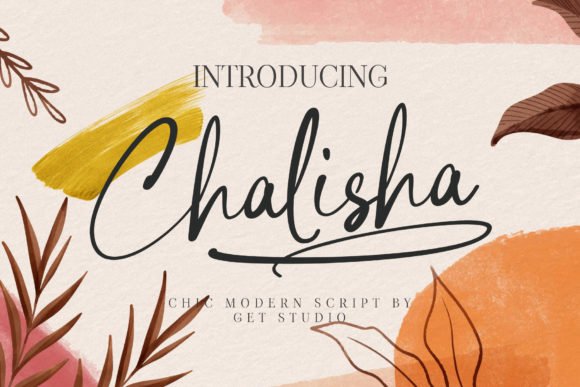
Discover the Whimsy of Chalisha Script Font
As a designer, there’s nothing quite like the thrill of discovering a new font that sparks your creativity. Perhaps you were working on a project and stumbled upon the perfect combination of letters and swashes that brought your design to life. For me, that moment happened when I came across the Chalisha Script Font. Its elegant, handwritten style is a breath of fresh air in the world of typography, and I couldn’t wait to share it with you.
The Chalisha Script Font is an original look that’s perfect for adding a touch of sweetness and delicacy to your designs. From letterheads and titles to stationery, this font is sure to bring a smile to the faces of your clients and customers. And for designers, the Chalisha Script Font is a valuable addition to any toolkit, offering endless possibilities for creative expression and experimentation.
- Unique Characteristics: Handwritten, cursive, elegant, and connected script font with swashes and ligatures
Chalisha Script Font Review
Overall, I think Chalisha Script Font is a beautiful and elegant addition to any design project. It has a lovely, handwritten feel that can add a touch of sophistication and personality to your work. ✨
- Unique character set: Chalisha Script Font has a wide range of unique characters and swashes that can be used to add flair to your text.
- High-quality design: The font is well-designed and looks great at a variety of font sizes and resolutions.
- Good for creative projects: Chalisha Script Font is perfect for creative projects, such as invitations, wedding stationery, and art projects.
- Limited language support: Chalisha Script Font may not be compatible with all languages, which could be a problem for projects that require multilingual support.
- Not suitable for body text: The font is best used for headings and titles, as the small text can be difficult to read.
Overall, I think Chalisha Script Font is a great addition to any designer’s toolkit. While it may have some limitations, its unique character set and high-quality design make it a great choice for creative projects.
Tips for Getting the Most Out of Chalisha Script Font
Use the Chalisha Script Font to add a touch of elegance and sophistication to your designs.
Pair it with bold fonts for maximum impact.
Alternatives to Chalisha Script Font
Carolyna Pro is a modern script font perfect for branding and packaging design. It has a unique, elegant feel that works well for luxury and high-end brands. This font is ideal for designers who want to create a sophisticated and stylish look.
Comparison to Chalisha Script Font: Carolyna Pro has a more refined and polished feel compared to Chalisha Script Font, making it suitable for high-end brands. While Chalisha Script Font has a more whimsical and playful feel, Carolyna Pro is more elegant and sophisticated.
Pacifico is a beautiful script font that exudes a sense of calmness and serenity. It’s perfect for designers who want to create a relaxed and inviting atmosphere. This font is ideal for branding, packaging, and advertising design.
Comparison to Chalisha Script Font: Pacifico has a more laid-back and casual feel compared to Chalisha Script Font, making it suitable for brands that want to convey a sense of relaxation and tranquility. While Chalisha Script Font is more energetic and playful, Pacifico is more subdued and elegant.
Great Vibes is a modern script font that’s perfect for designers who want to create a fun and energetic atmosphere. It’s ideal for branding, advertising, and social media design. This font is great for designers who want to add a touch of playfulness to their designs.
Comparison to Chalisha Script Font: Great Vibes has a more energetic and playful feel compared to Chalisha Script Font, making it suitable for brands that want to convey a sense of fun and excitement. While Chalisha Script Font is more elegant and sophisticated, Great Vibes